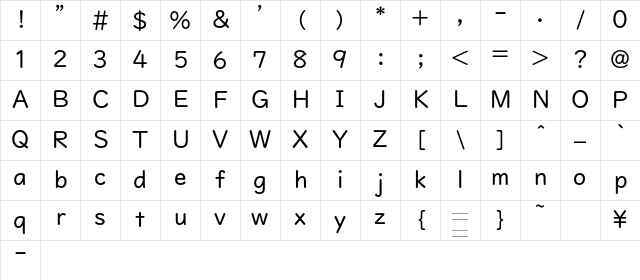
UDDigiKyoLatin Regular Regular
Design Context for UDDigiKyoLatin Regular
UDDigiKyoLatin Regular is a composed and adaptable typeface that performs quietly and consistently across a wide range of design contexts.
Pro Tip: Use UDDigiKyoLatin Regular in both headline and body roles to test its range before committing to a single application.